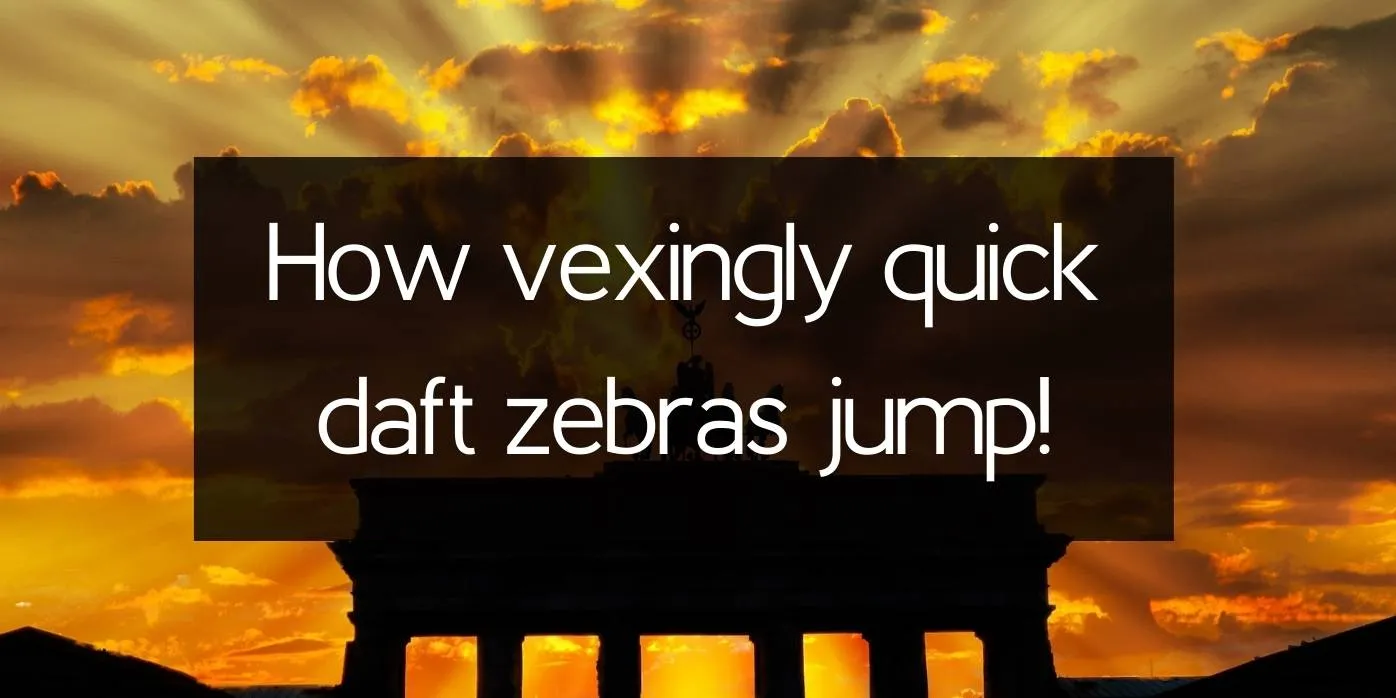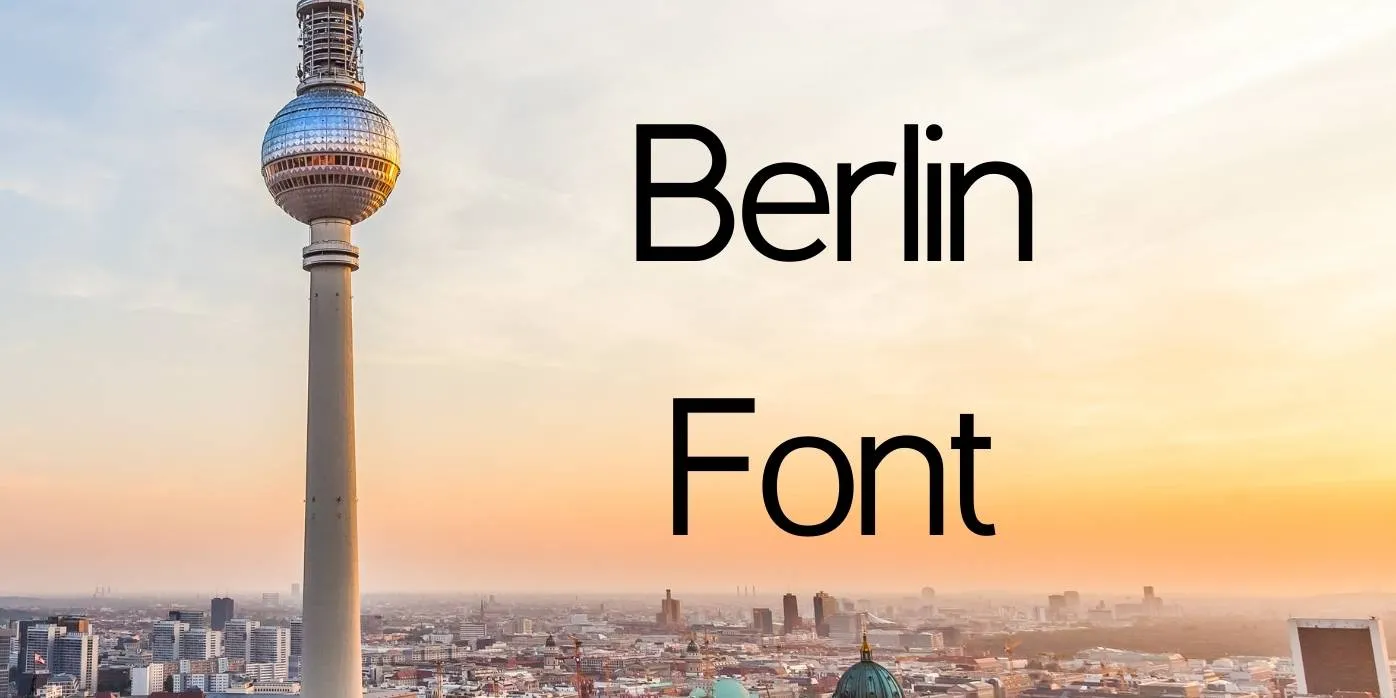
Berlin Font
Berlin font Was developed and designed by Antonio Rodrigues Jr. This classy typeface belongs to the Sans-Serif font family. This amazing font has a modern and geometric style which gives your text a clean and professional look. berlin font is free for personal use only.
Its copy and paste function is best for its Generator tool. This stylish font is available in 2 weights these two weights are Regular and Bold. This attractive font looks great on any text, whether it is a headline, body copy, or logo. This font is best for a large size.
Interstate Font is most similar to this classy typeface. If you are looking for a modern and professional font, surely you pick this classic typeface. This amazing typeface has a clean and stylish design that will give your text a clean and polished look.